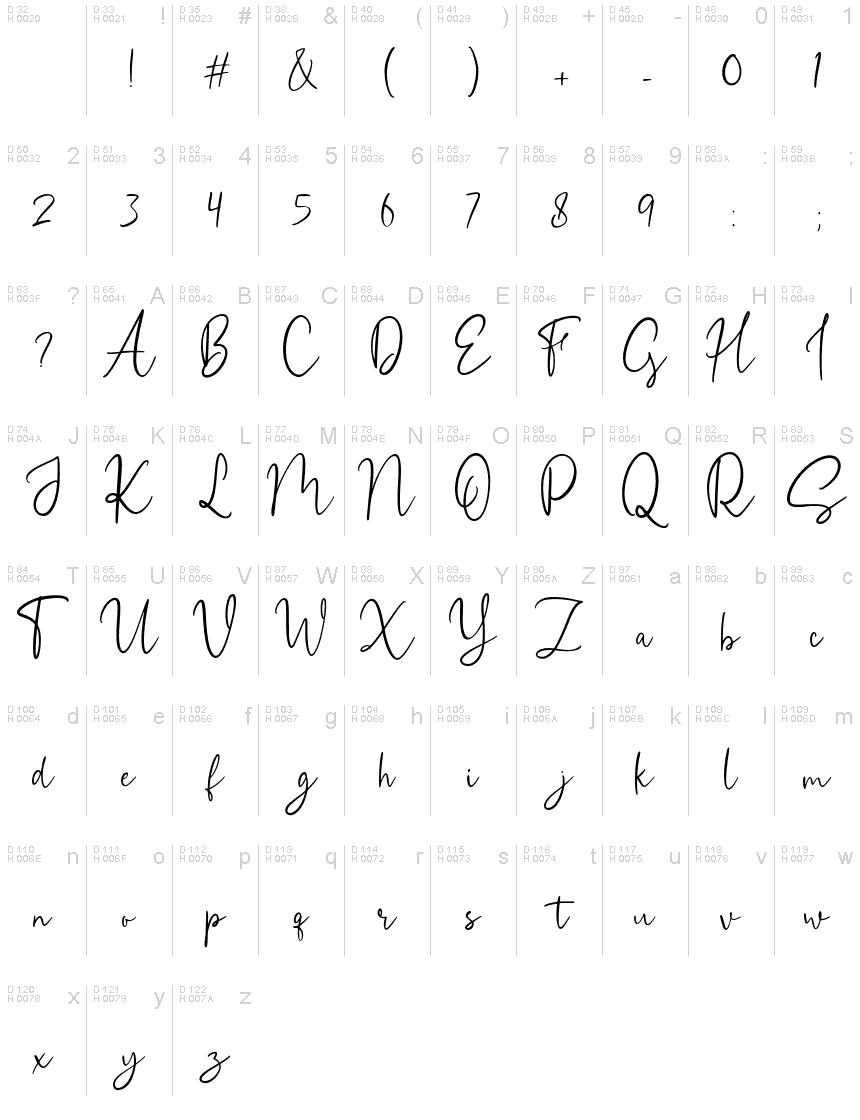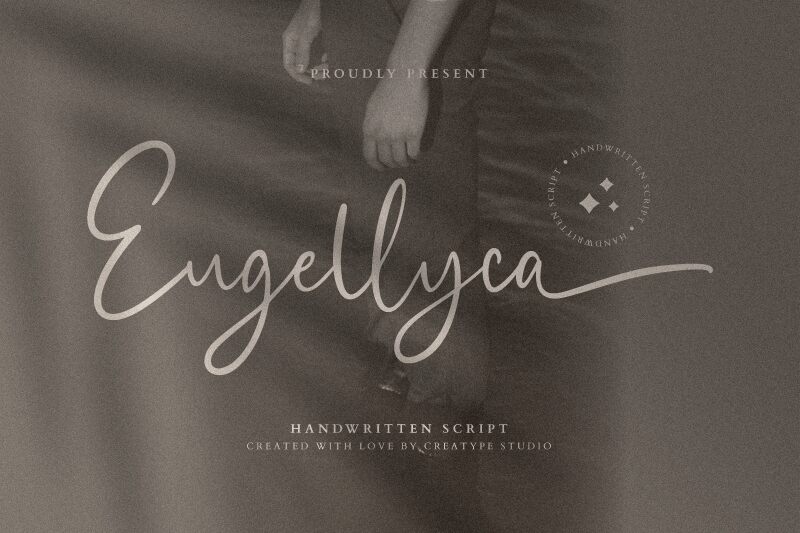
Eugellyca Regular
Meet Eugellyca, the charming handwritten font by Creatype Studio that exudes a delicate and whimsical vibe. Its light weight lends itself perfectly to projects requiring a touch of elegance, such as wedding invitations, branding for boutique shops or artisanal products, or even social media posts seeking a personal touch. With its graceful curves and playful flourishes, Eugellyca promises to add a touch of magic to any project you undertake. So why not try it out and see how this enchanting semi-bold font can elevate your designs?